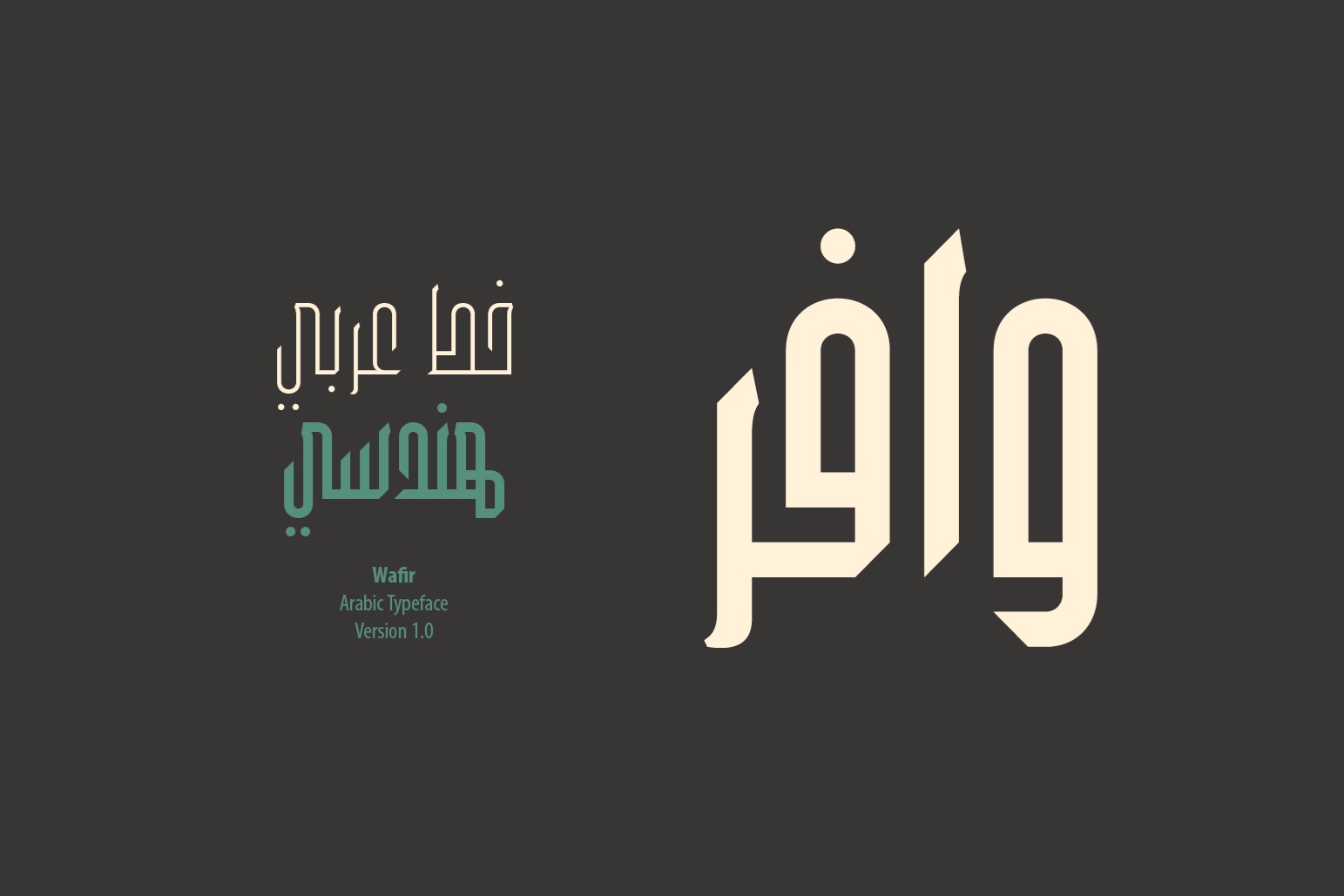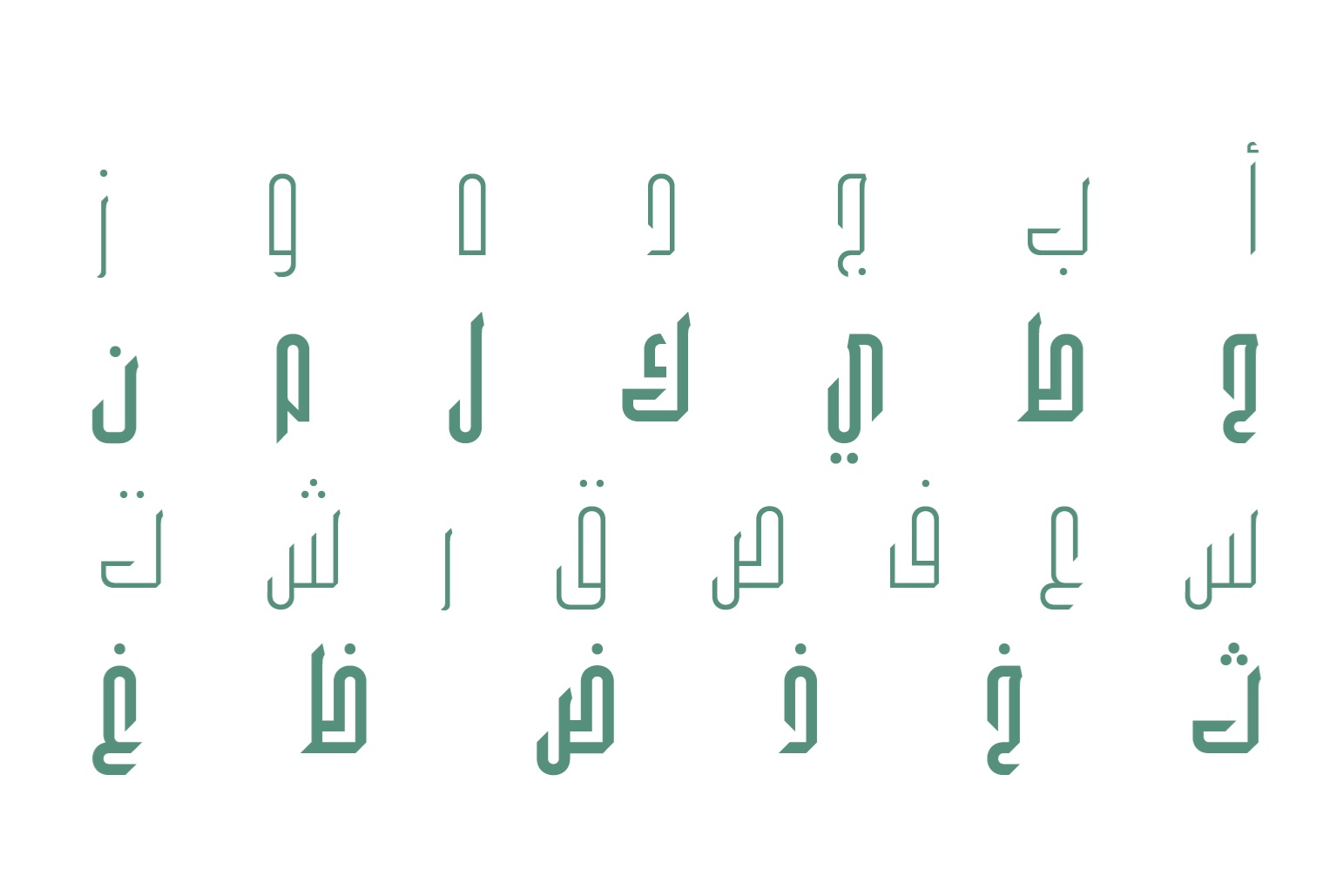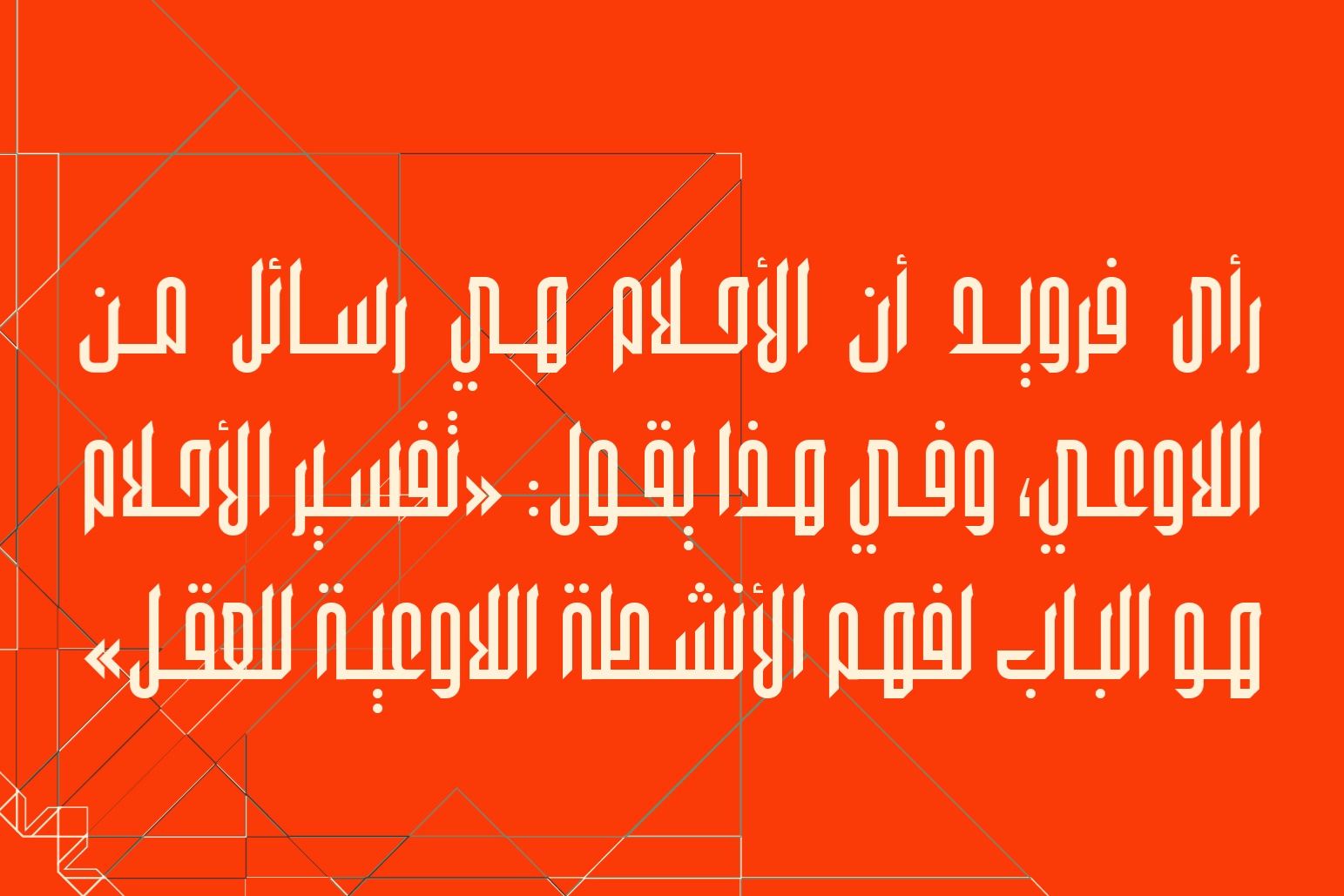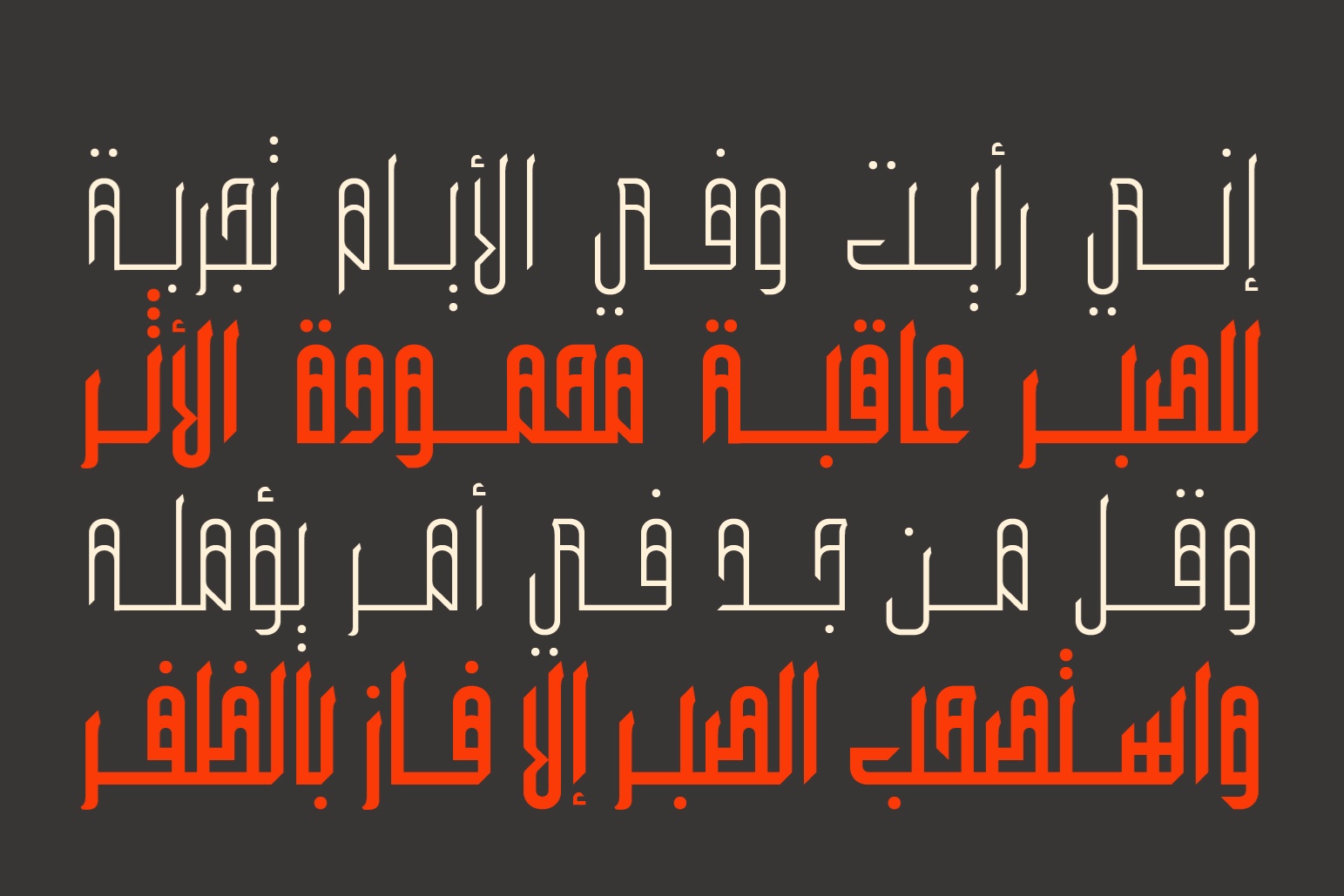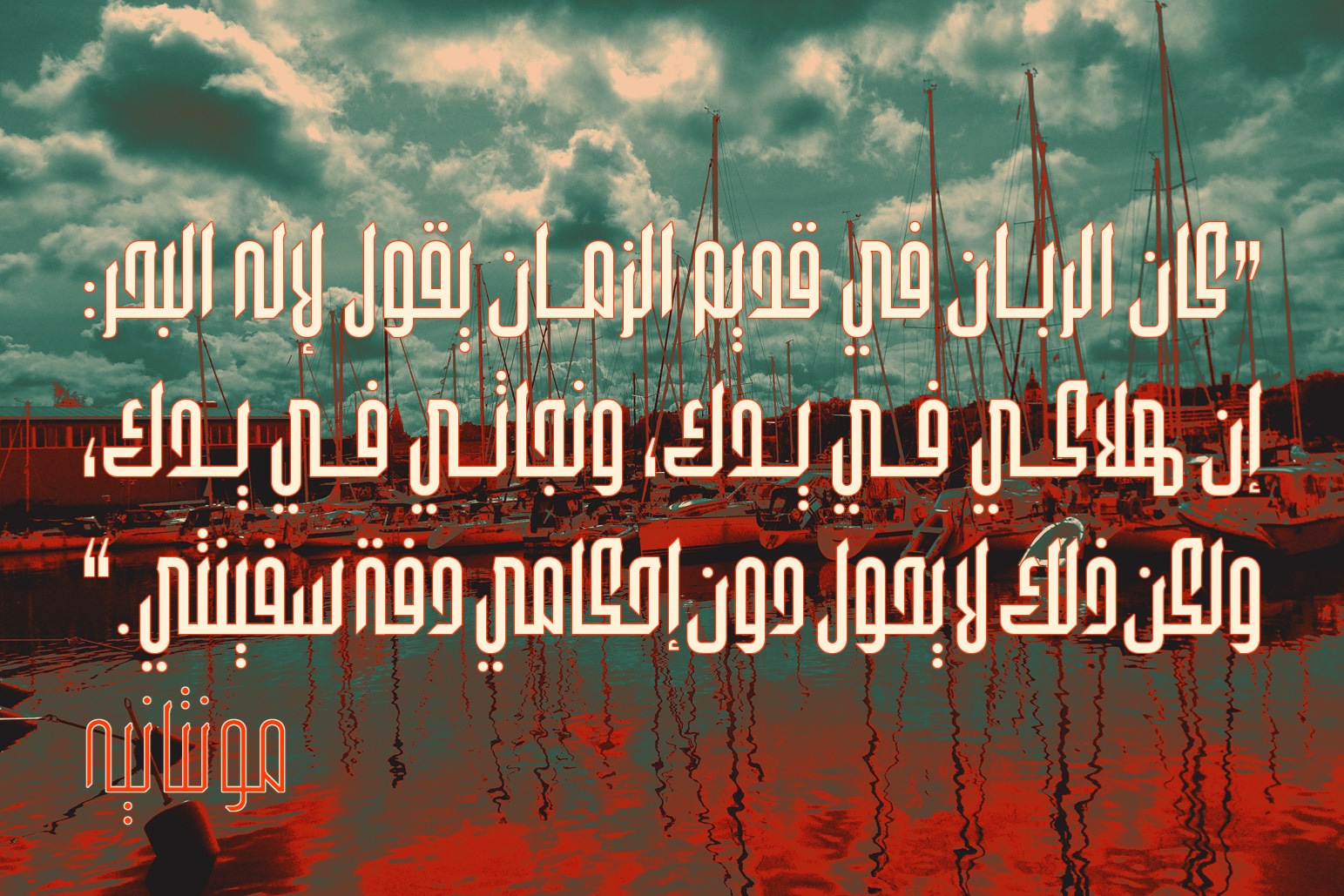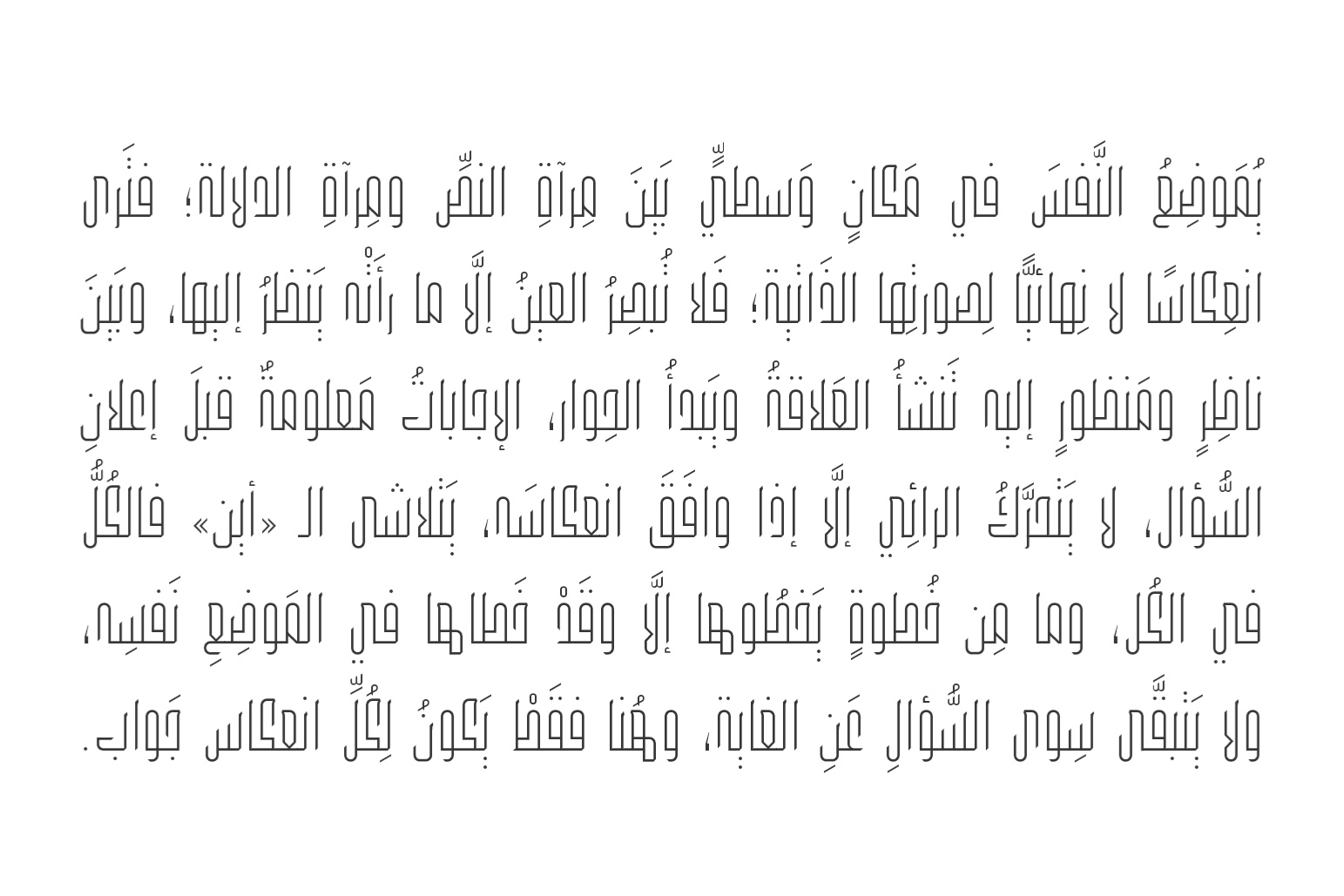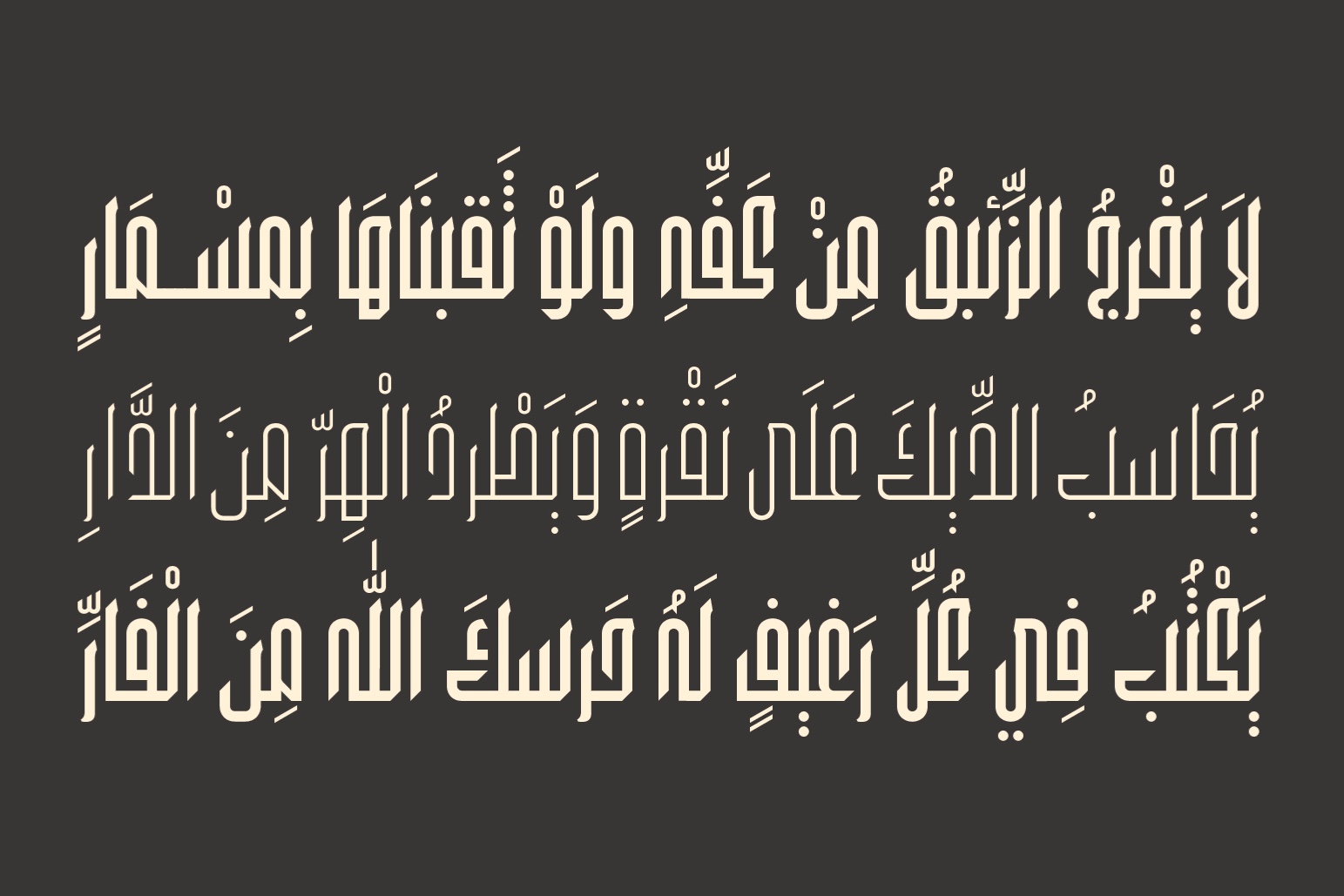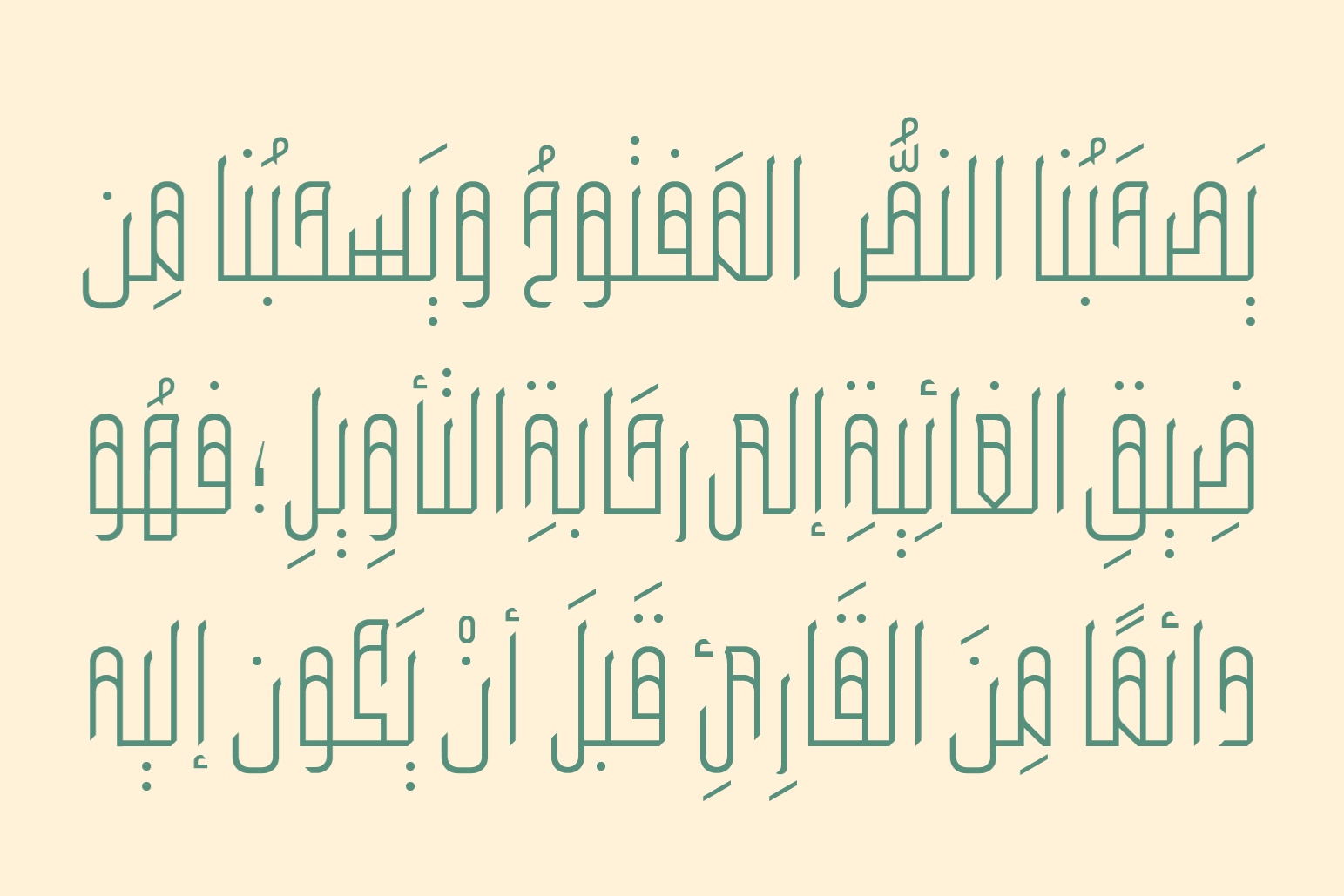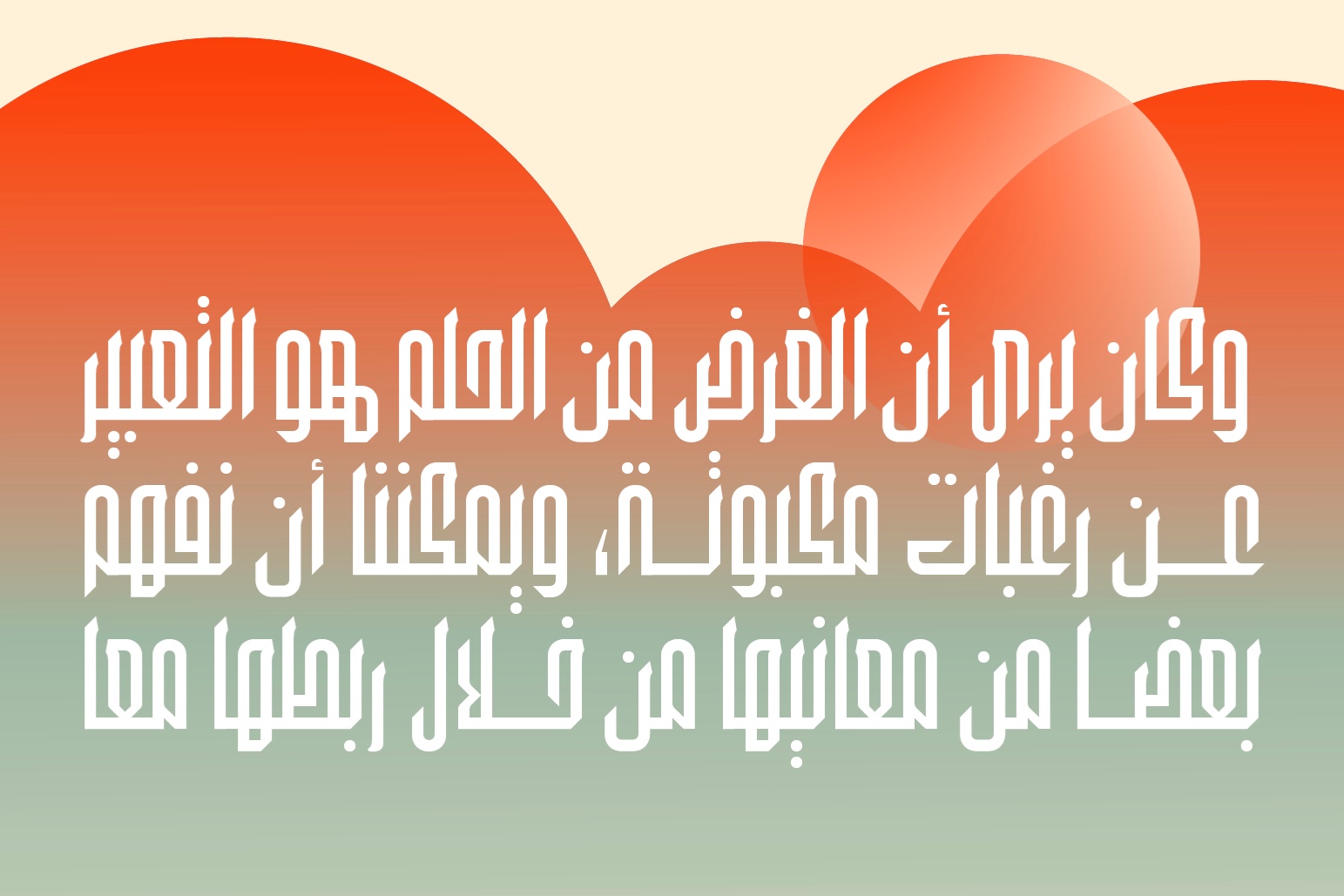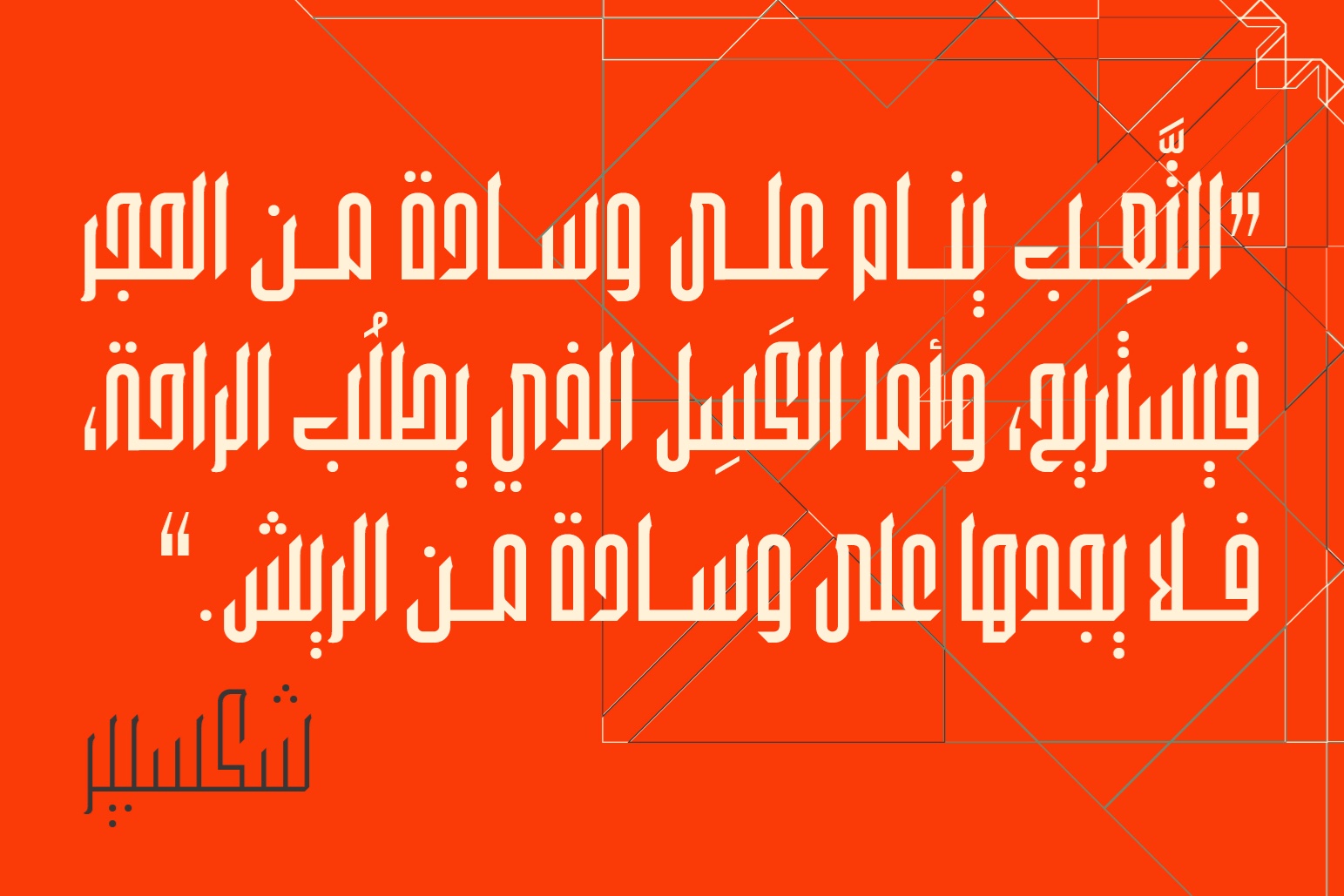
Wafir is an Arabic display font that features a solid geometric structure. The letterform design combine decorative forms that suit various creative projects. Wafir typeface include two styles (Plain and Meshed) and two weights (Light and Heavy).